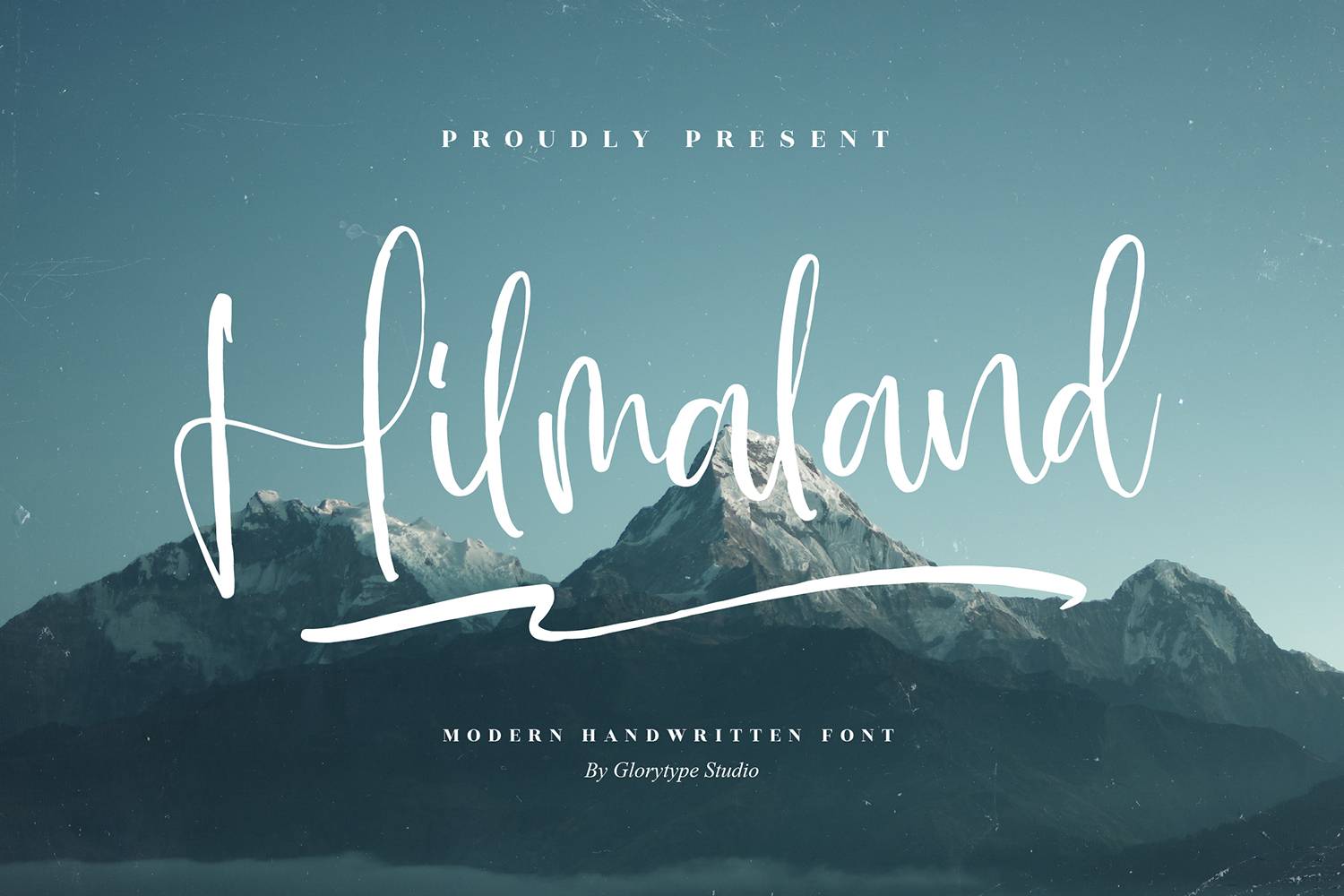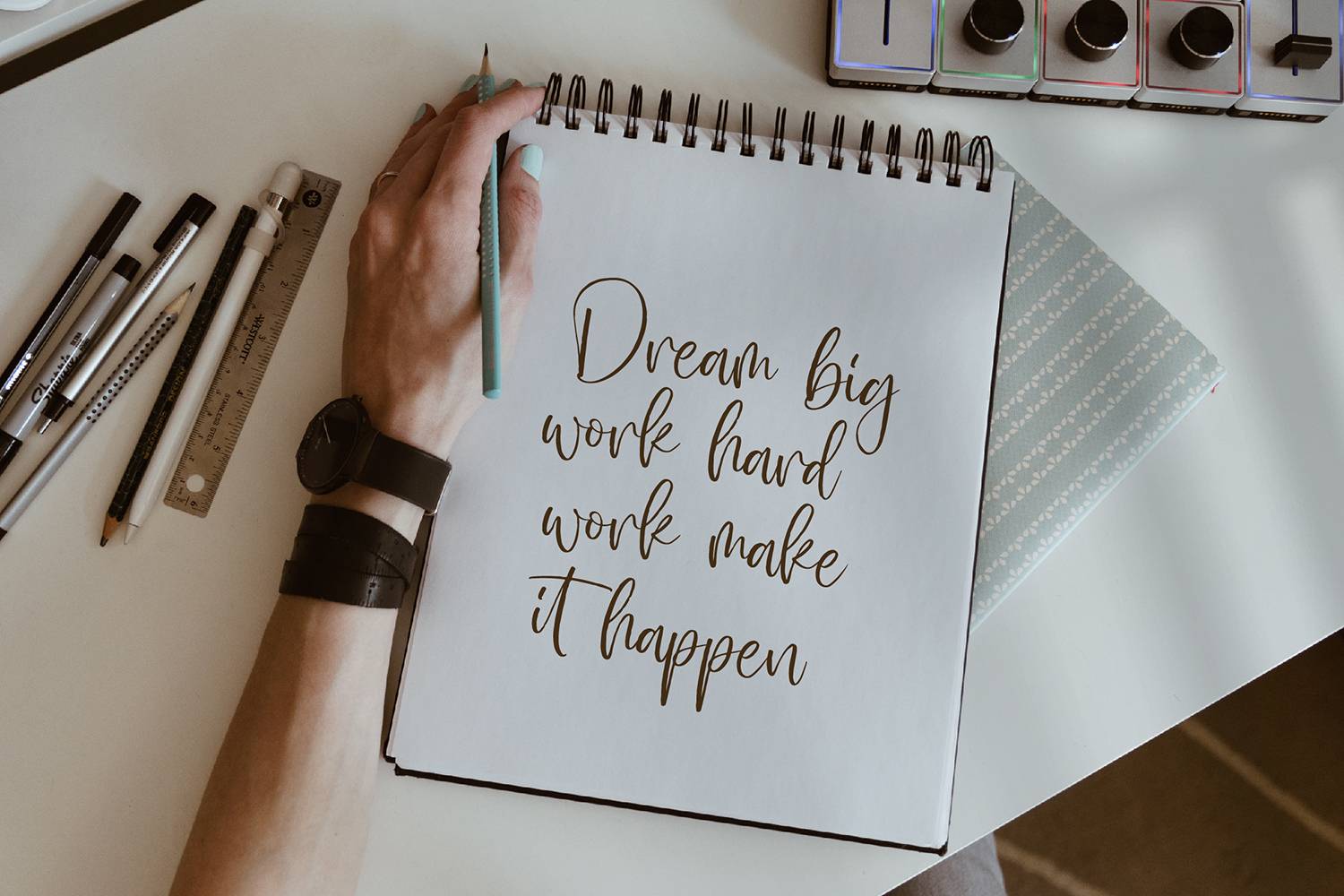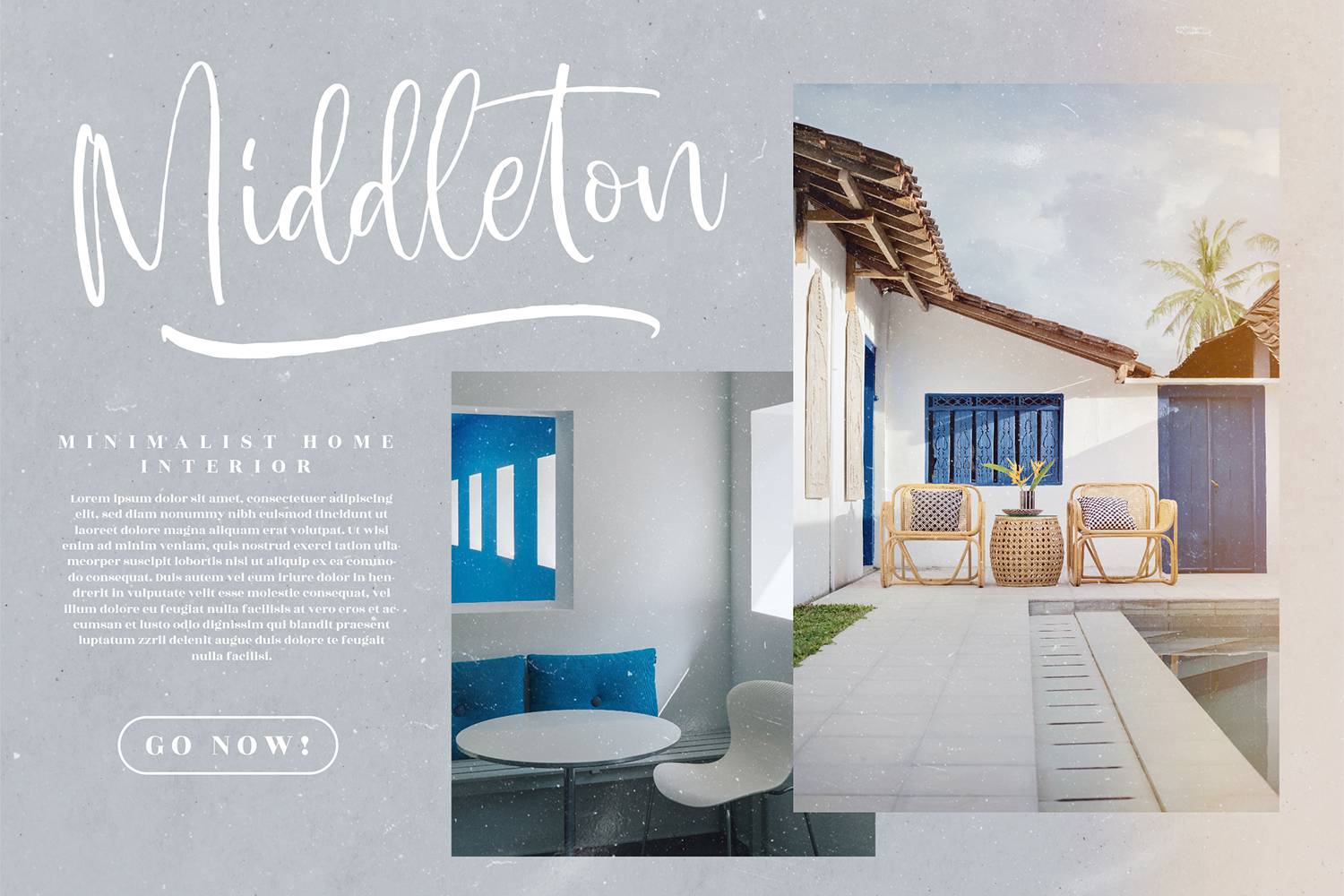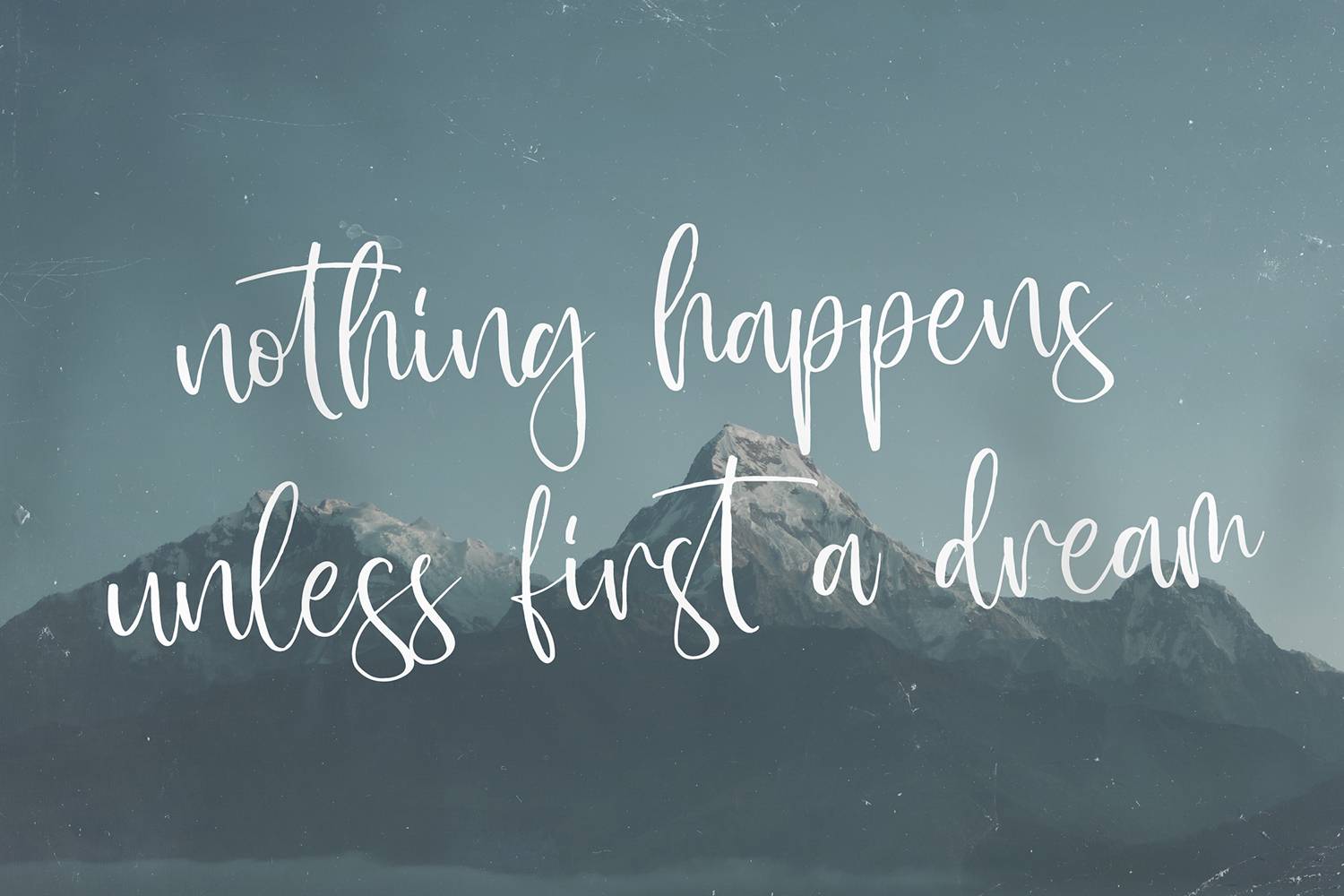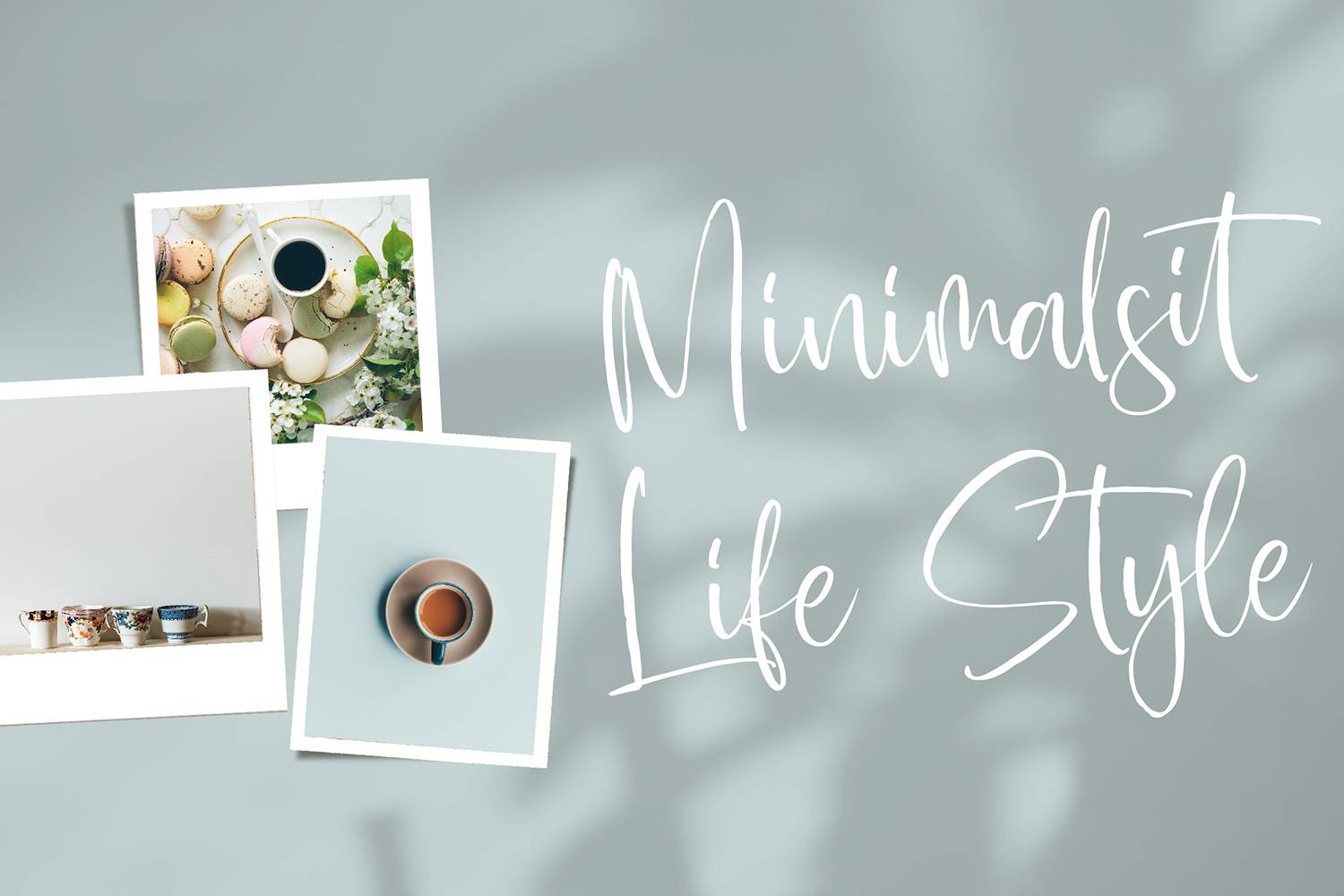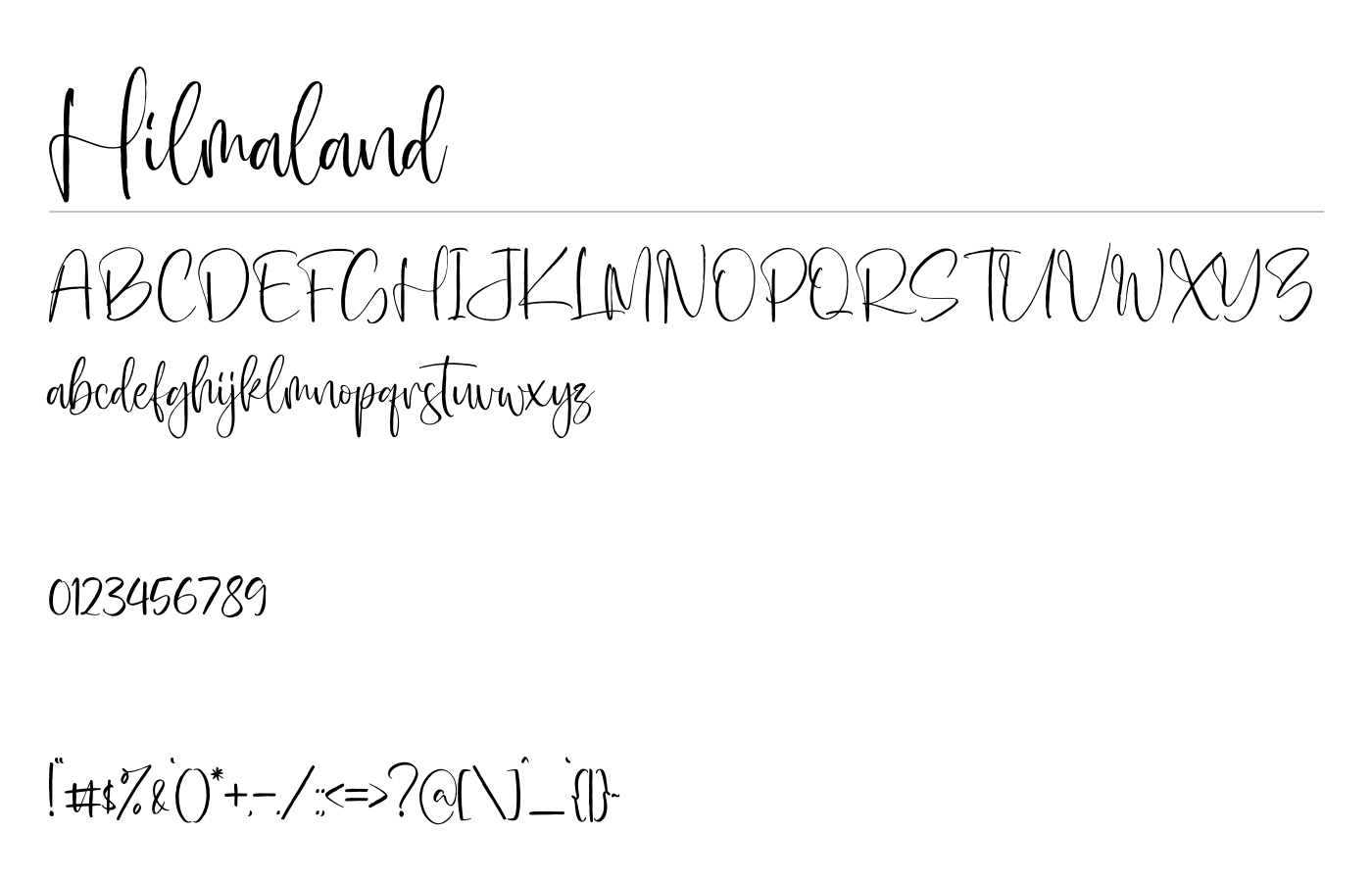
Hilmaland is a slender, elegant script font with a hand-drawn feel, featuring delicate strokes and a playful, slightly whimsical style. Its tall x-height and flowing letterforms make it perfect for creative branding, invitations, and feminine designs where a personal, artistic touch is desired. This font works best in headlines and logos where its unique charm can stand out and add a sophisticated yet approachable vibe.
Hilmaland Font
About Hilmaland Font